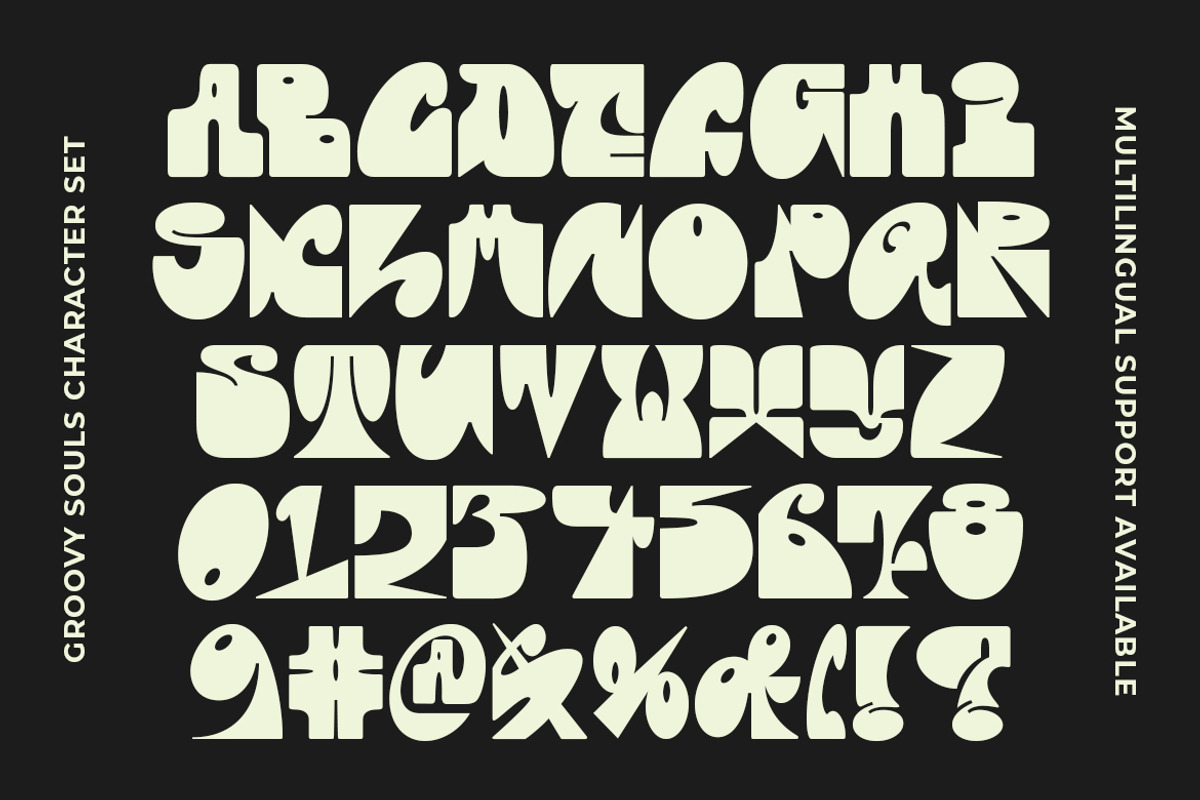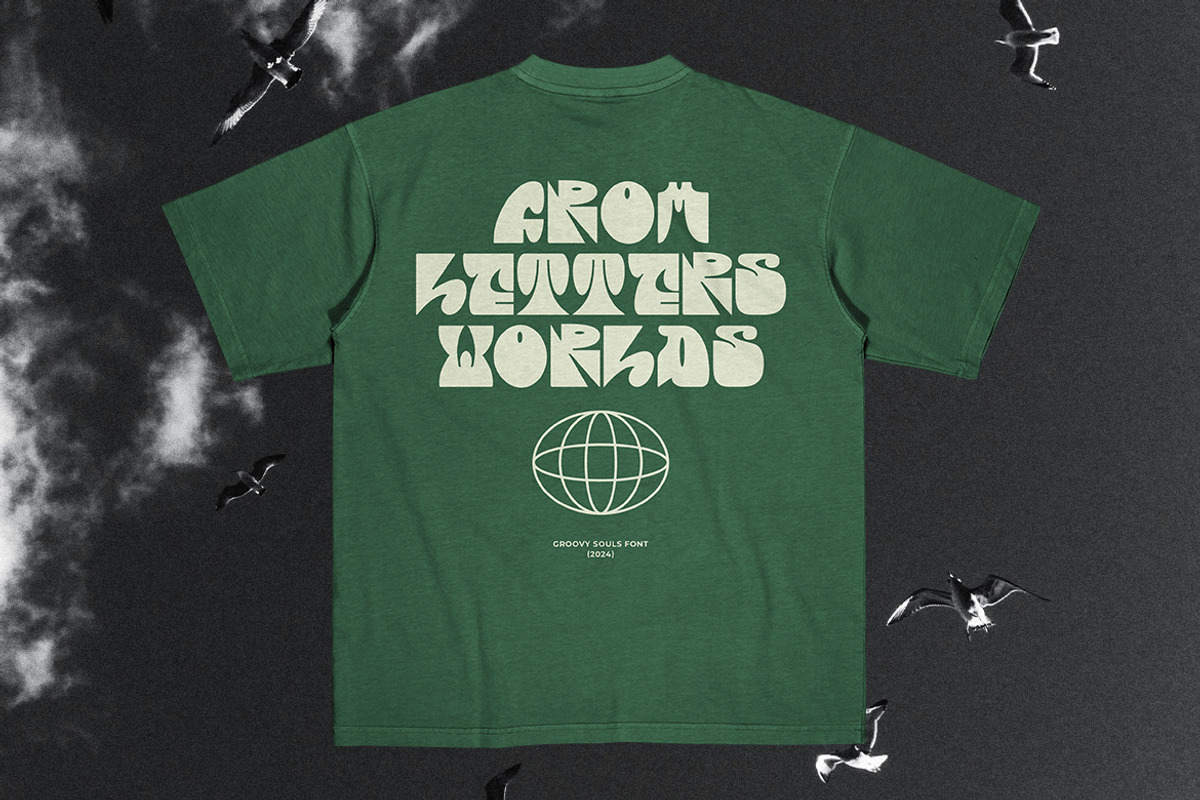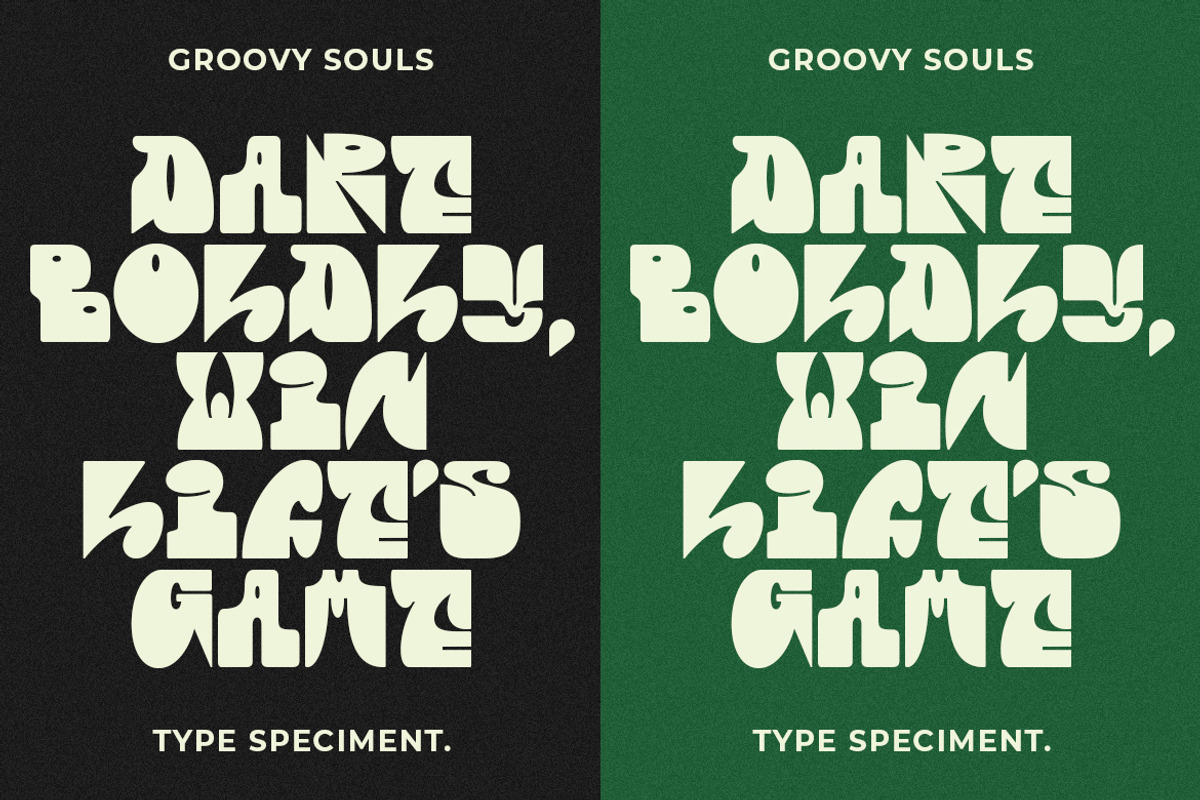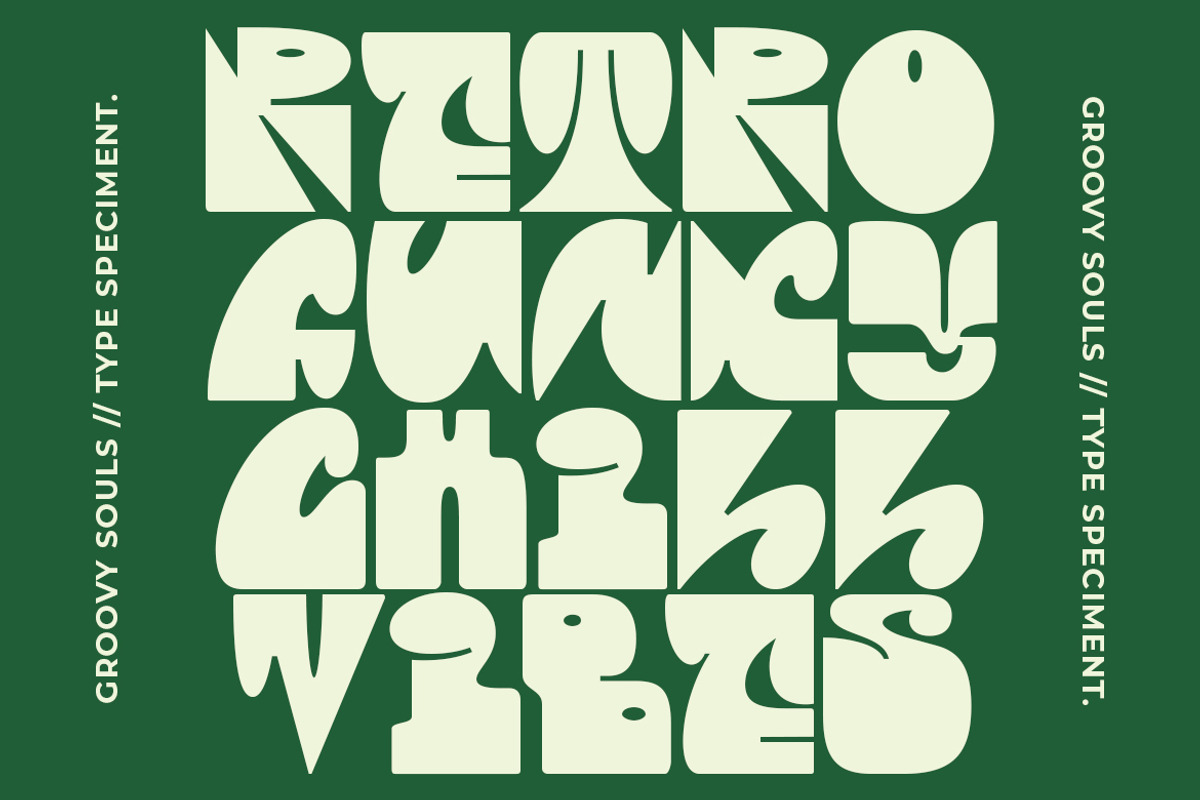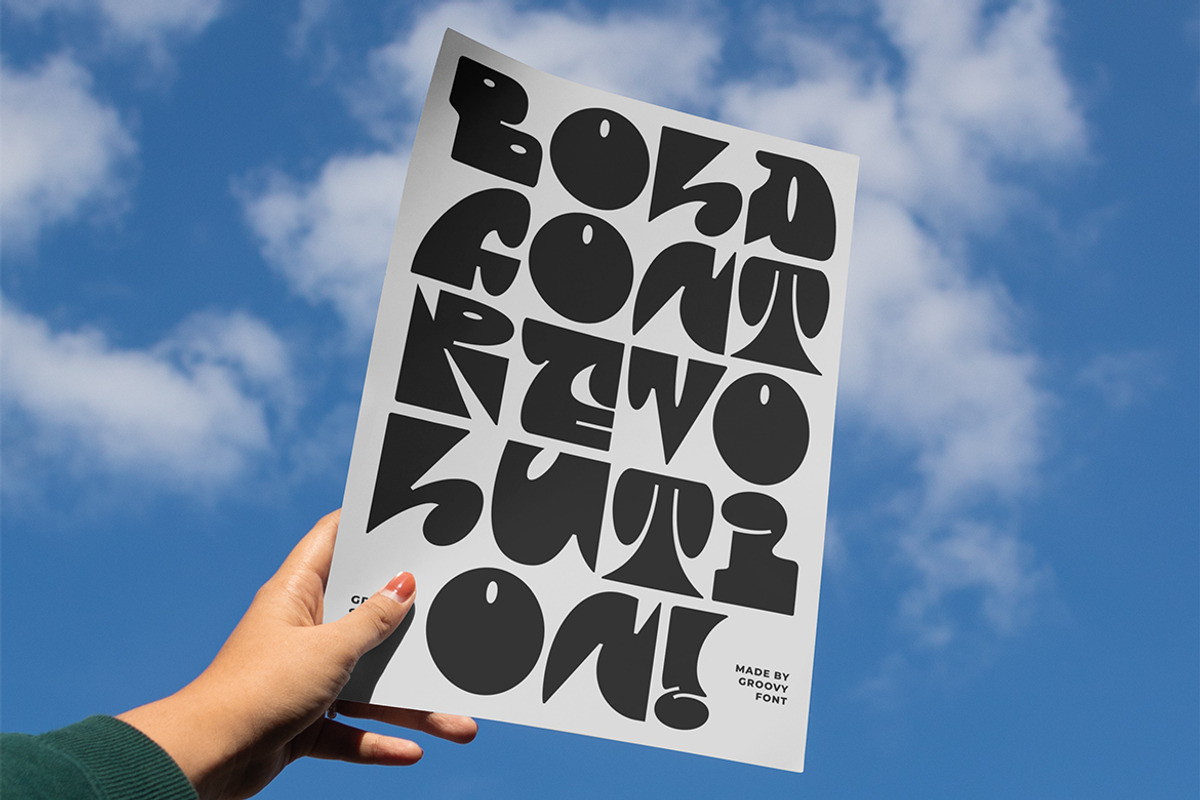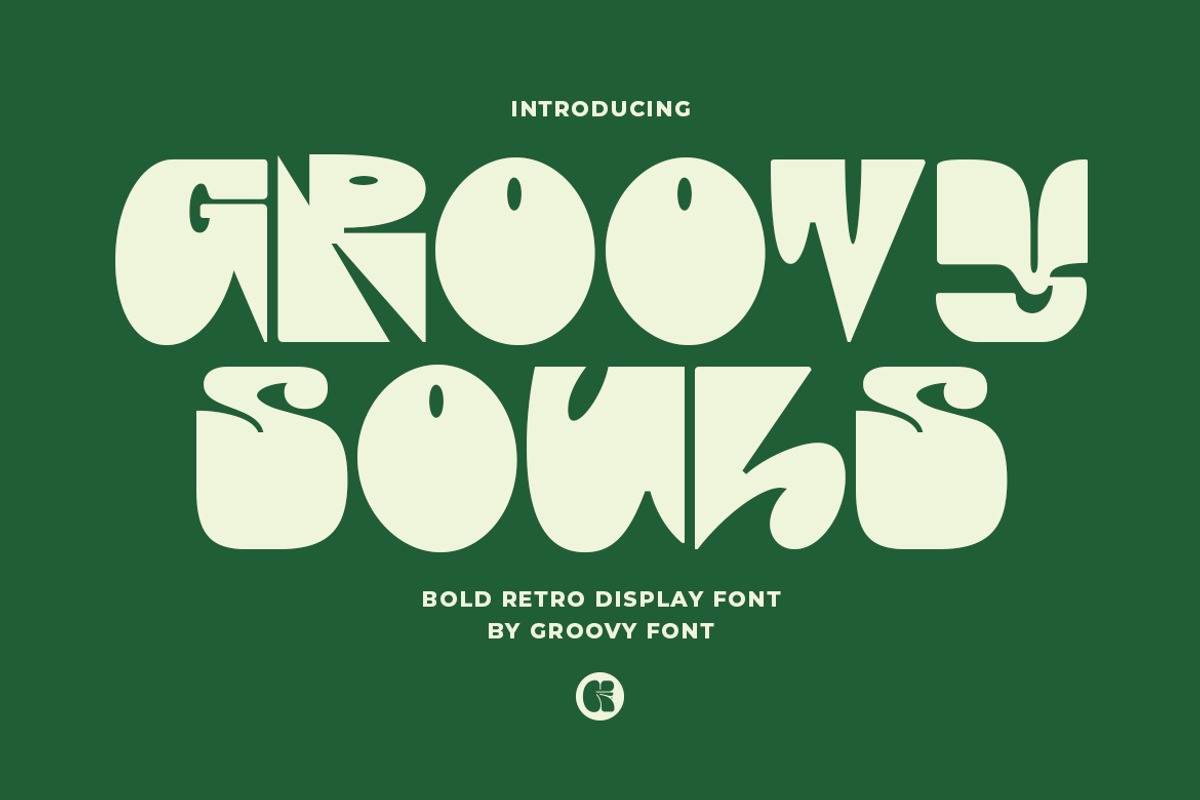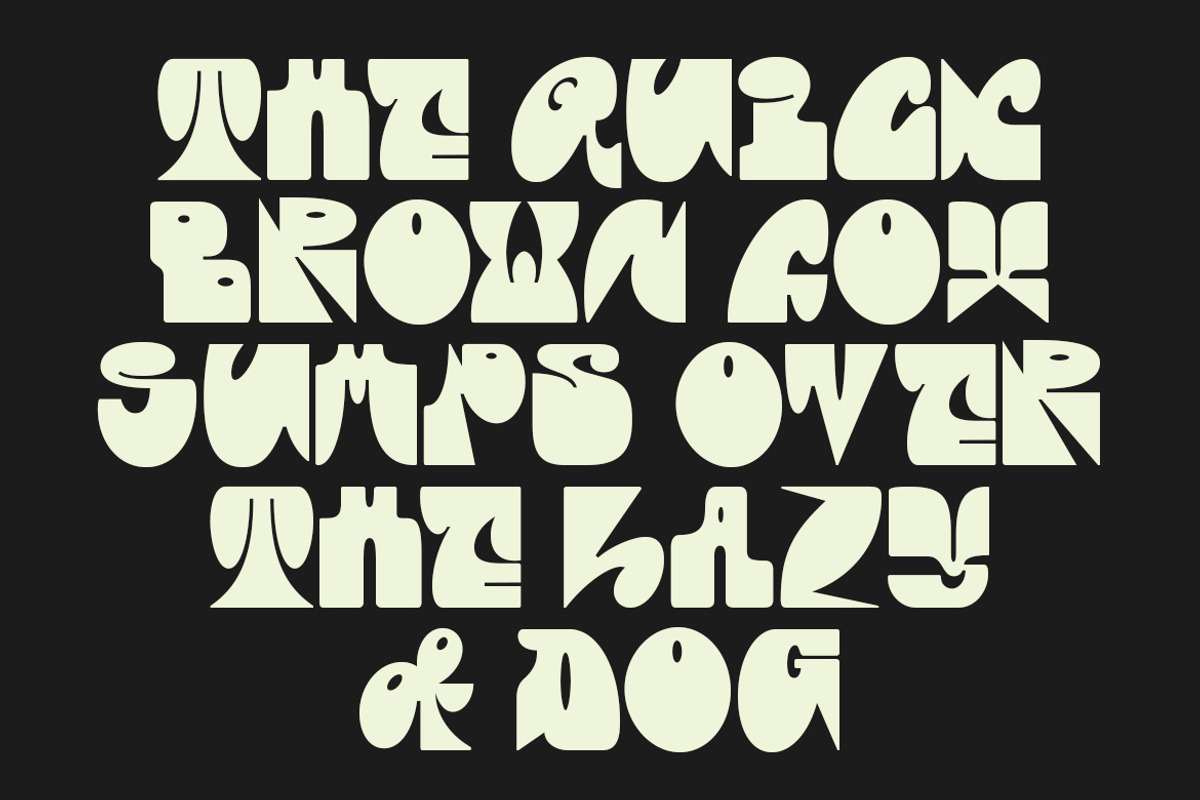
Groovy Souls - Retro Display Font
Groovy Souls is a Bold Retro Display Font. The font is meticulously crafted and is versatile for various design projects, from posters to logos and other graphic designs.
With its strong retro vibe, this font adds a classic and funky touch to your designs. It is often used to evoke a vintage or nostalgic feel in creative projects.